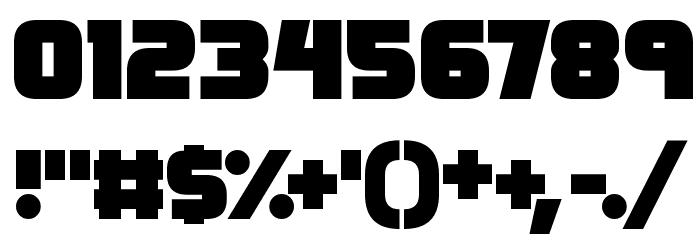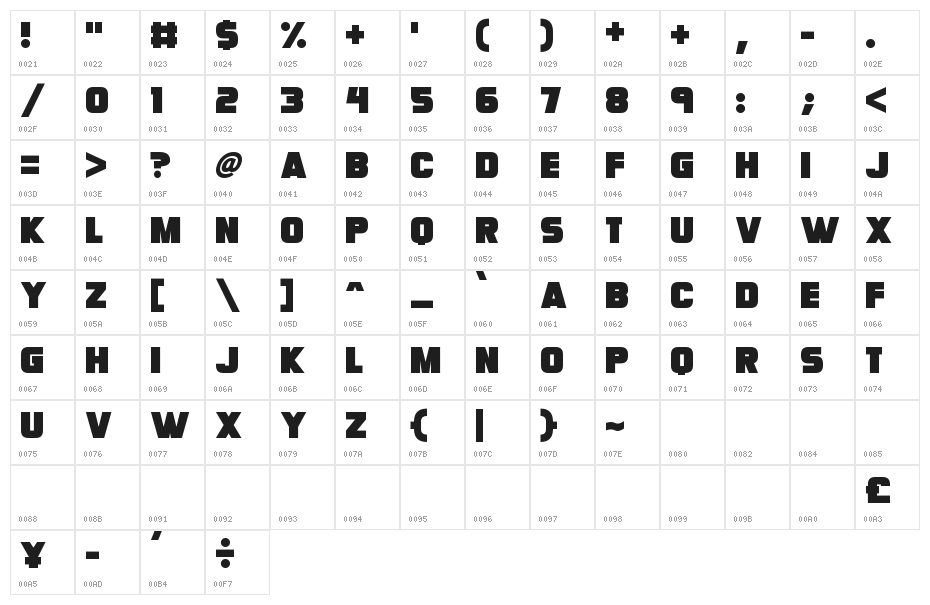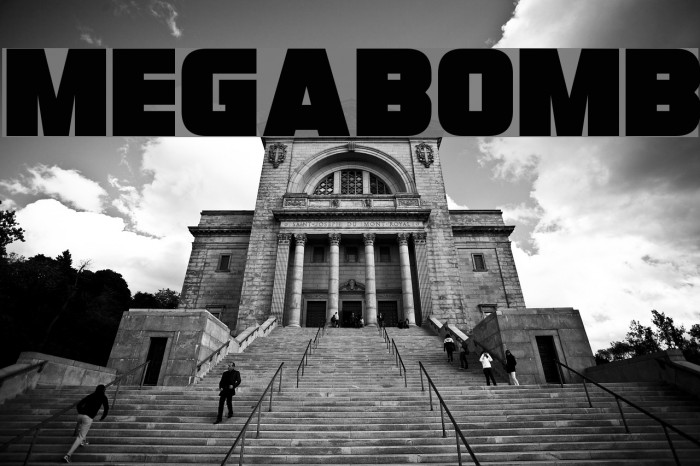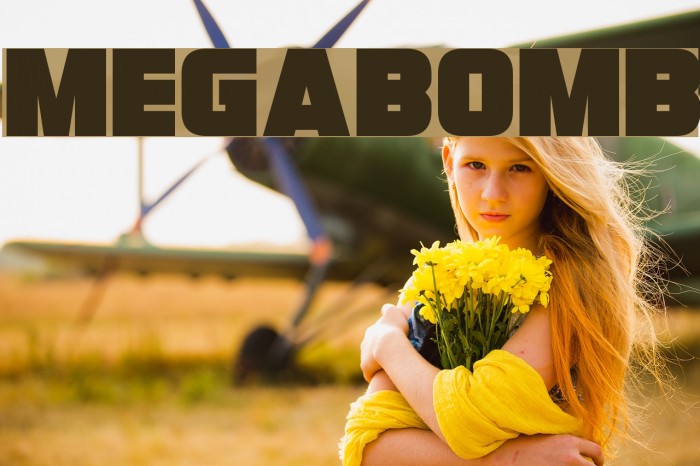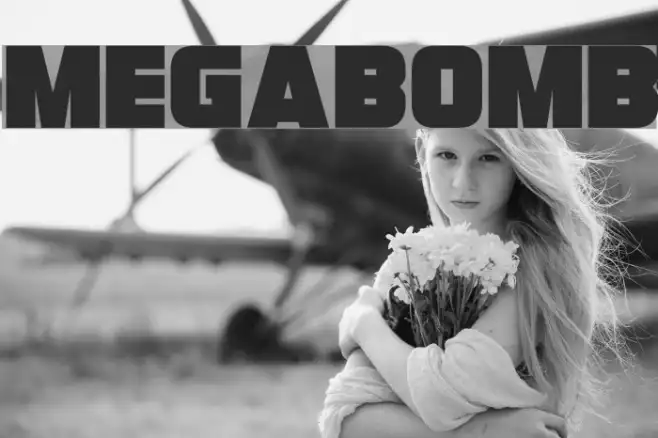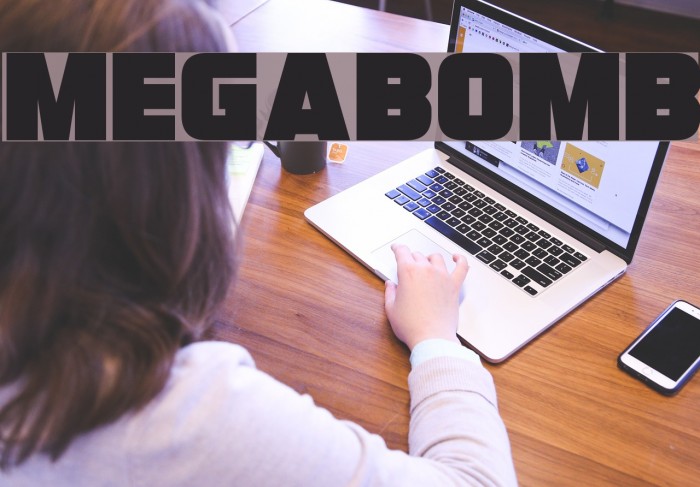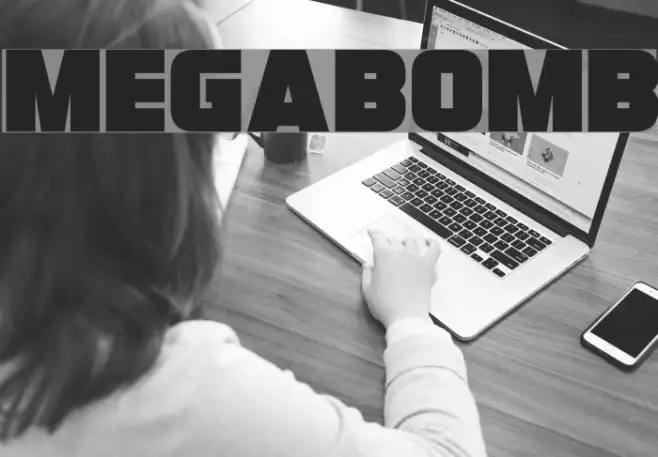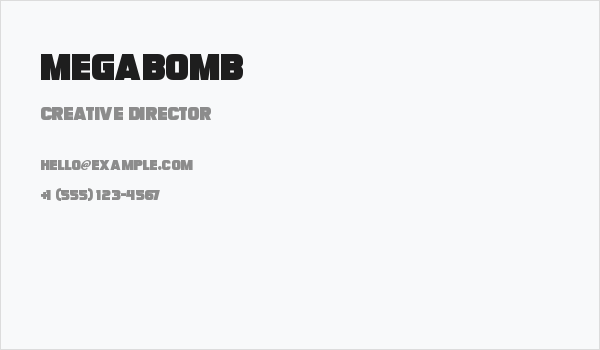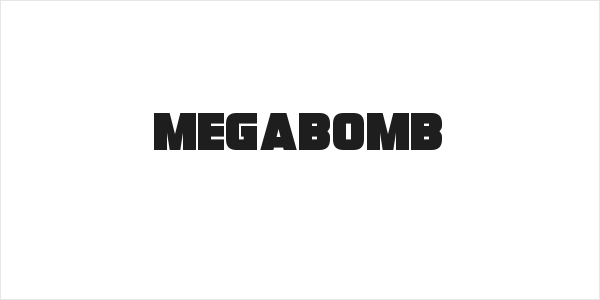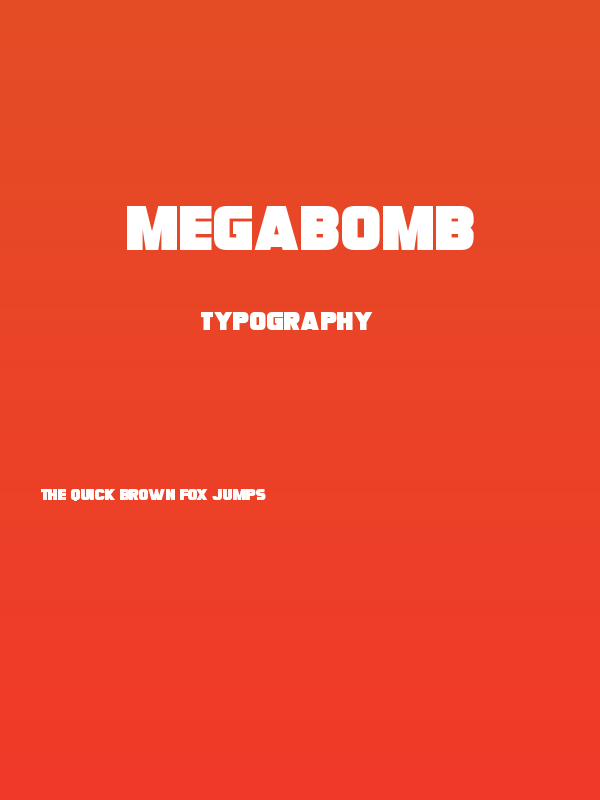
Megabomb Font
Megabomb Description
This bold and impactful font features strong, thick strokes with a commanding presence. The characters are uniformly wide, creating a sense of stability and strength. The uppercase and lowercase letters maintain a consistent height, while the numerals are equally robust, ensuring clarity and readability. The special characters are designed with the same boldness, making them stand out effectively. This font's geometric shapes and solid structure make it ideal for attention-grabbing designs.
| Proposed Projects | Ideal for posters, headlines, logos, and branding materials that require a strong visual impact. |